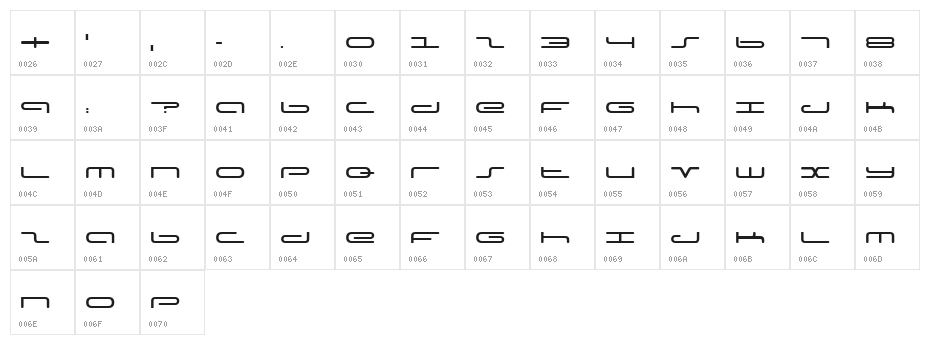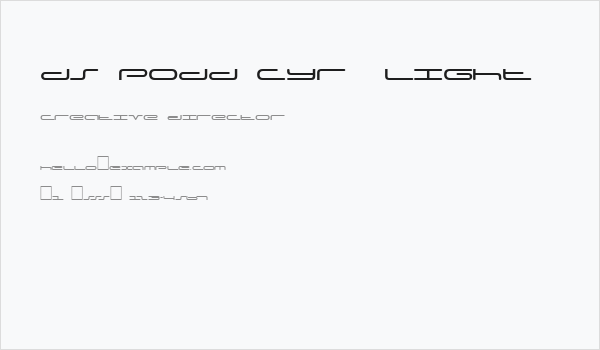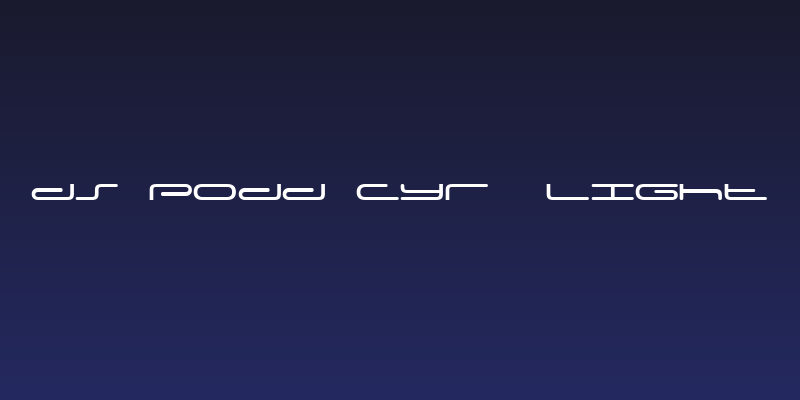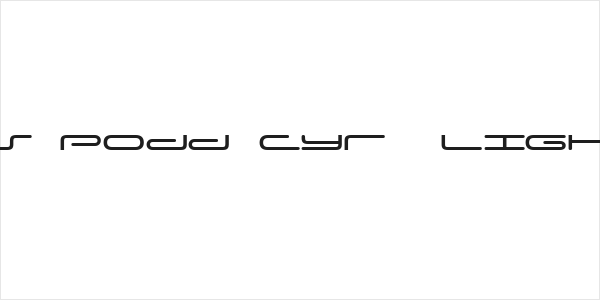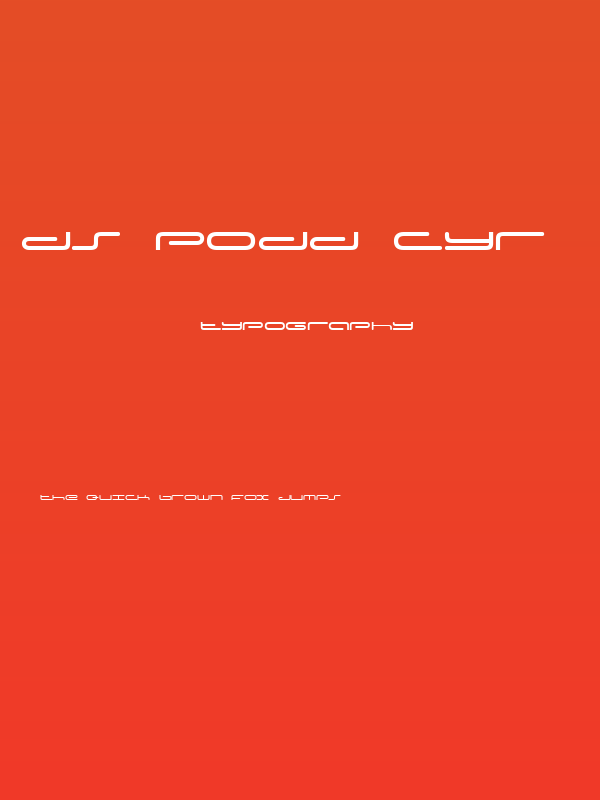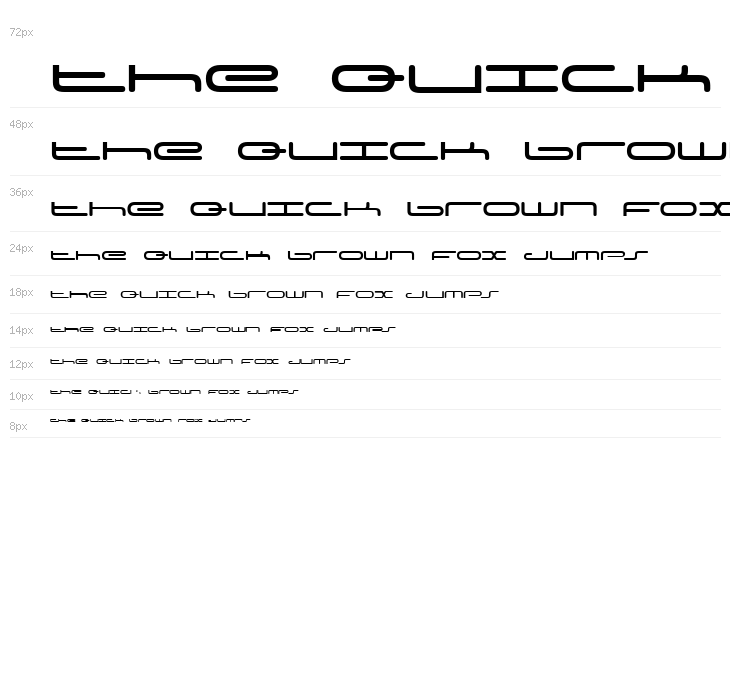
This font features a futuristic and geometric design, characterized by its sleek and streamlined appearance. The characters are constructed with a consistent line weight, giving it a uniform and modern look. The rounded edges and smooth curves create a sense of fluidity, while the open counters and minimalistic style enhance readability. The font's unique structure makes it stand out, with certain letters incorporating unexpected angles and cuts that add a distinctive touch. Its clean and uncluttered design is ideal for projects that require a contemporary and innovative aesthetic.
| Use Case | Logos, Headlines, Digital interfaces |
| Proposed Projects | Ideal for technology branding, sci-fi themed designs, modern advertising, and digital interfaces. |